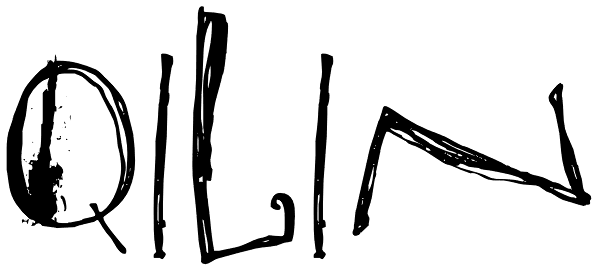
Qilin
A Qilin is a mythical hooved creature, looking a bit like a cow with a lion's head, reptilian scales and deer antlers. The Qilin features in Chinese lore, where it is often associated with good luck and prosperity. Qilin font is a rather messy...